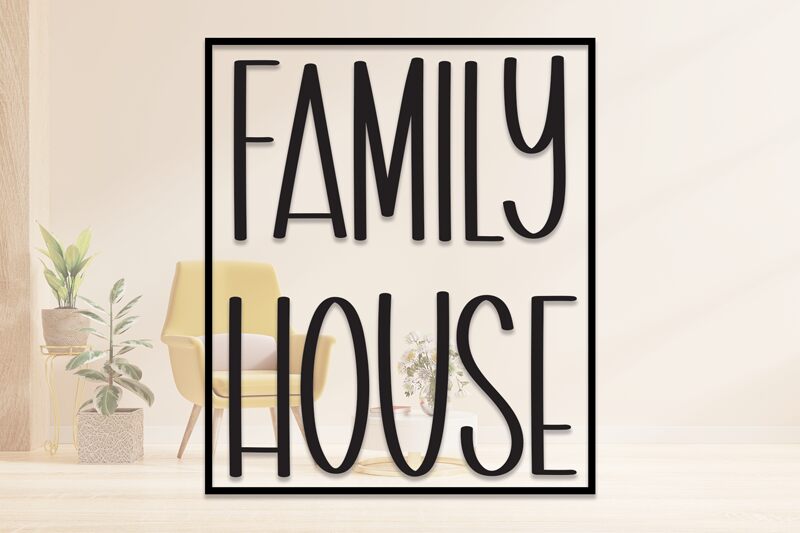
Family House
Family House, a whimsical creation by Scratchones, brings a playful handwritten touch to your projects. Its semi-light weight and extra-condensed width give it a unique charm, perfect for fun and lighthearted designs.
With its all caps and block letter style, this font is ideal for children's book covers, comic strips, party invitations, and quirky branding.
Let Family House bring a dash of creativity and joy to your next project!
The latest style letters are perfect for wall displays, wedding invitations, social media post logos, advertisements, product packaging, product designs, labels, photography, watermarks, invitations, stationery, and any project that requires taste handwriting.